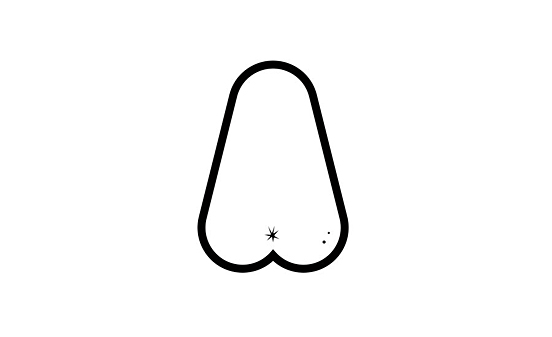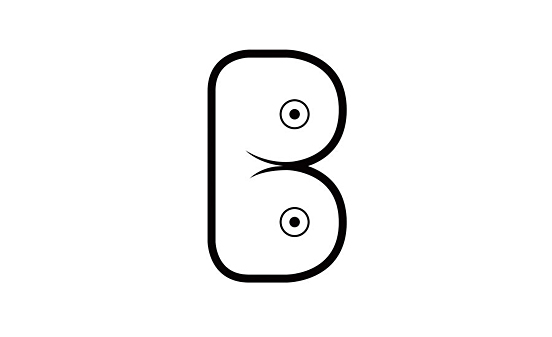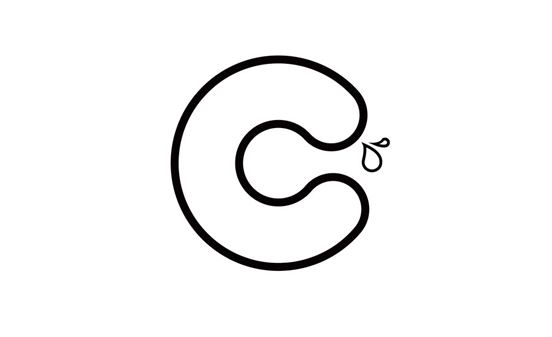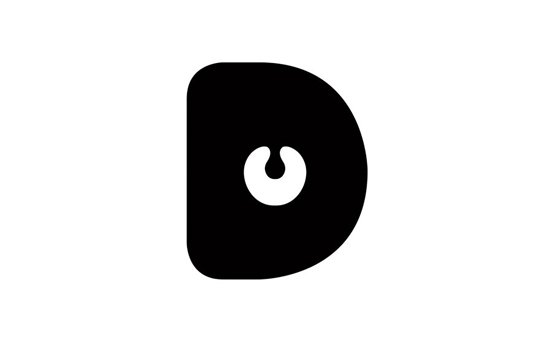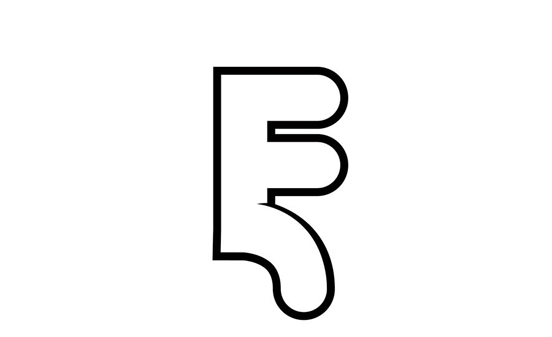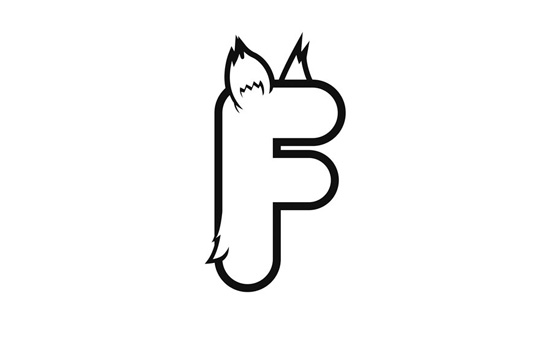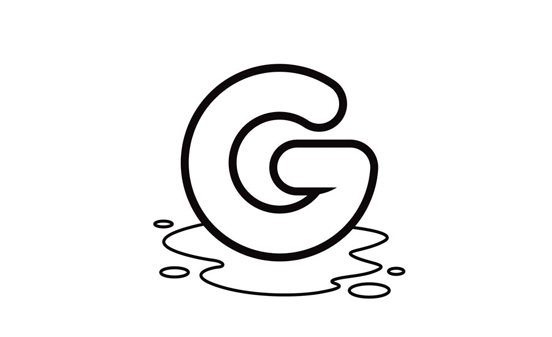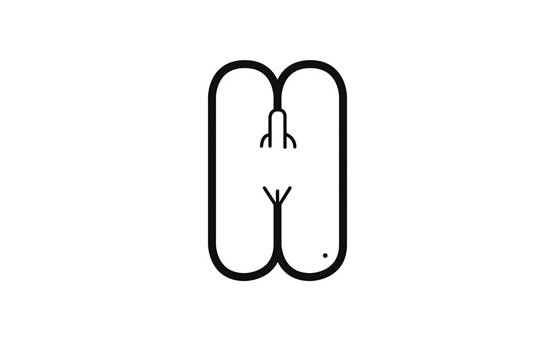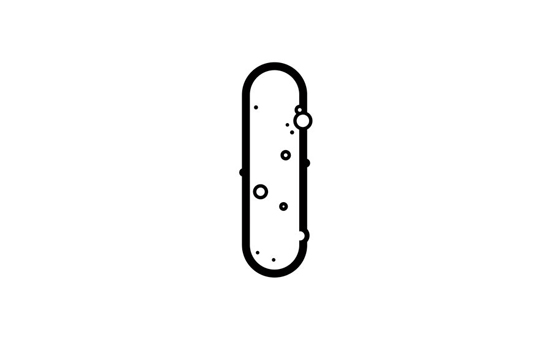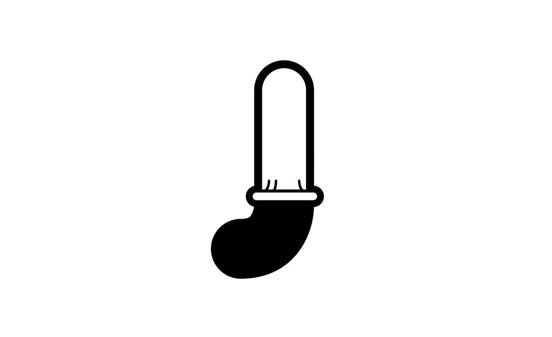
Sexy and Funny Font by Alex Merto
Not long before, New York based graphic designer Alex Merto rewrote a series of new letters. In his creation, all the shapes of letters are sex-related. For instance, letter A is in the shape of ass, letter B looks like breasts, letter J is wearing a condom… I have to admit that the new image of the alphabet is, to a certain extent, fun and successful. Here is the design of Alex Merto, enjoy it and see if you can speak all of them out.